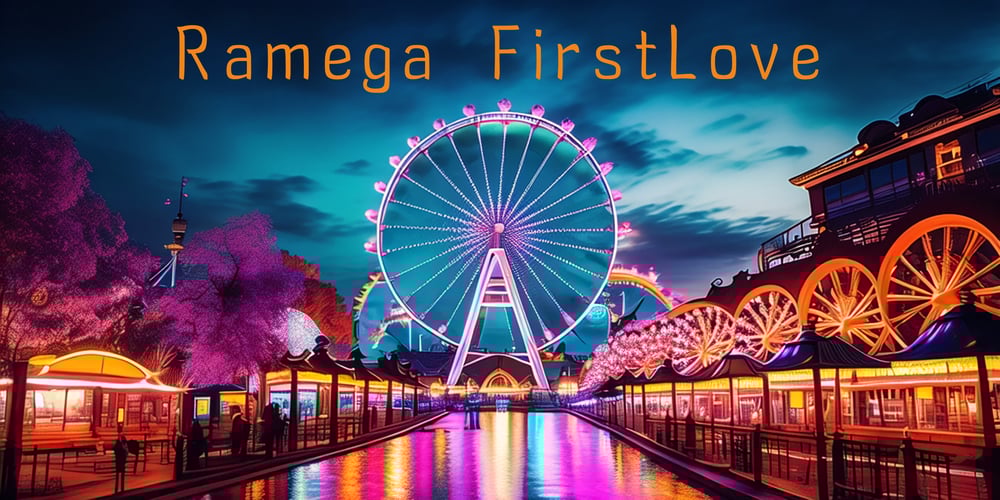
Ramega First Love Font Family was designed by Apollo Zhang and published by Ramega. Ramega First Love contains 1 styles and family package options. Introducing “Ramega First Love,” a unique English typeface that captures the heart with an essence reminiscent of those tender first-love memories. With features distinctly approaching the sans-serif style, it holds an intriguing blend of the concrete yet maintains an aesthetic allure, reflecting the bittersweet, raw yet beautiful nature of young love.The heart of this typeface lies in its deliberate incompleteness. The strokes, though they appear disrupted, are intentionally so, giving the characters a life and personality of their own. These slight imperfections symbolize the half-formed dreams and innocent aspirations of first love.An interesting aspect of “Ramega First Love” is its structural rigidity. Instead of flourishing curves, the letters retain a certain rigidity, reminiscent of the hesitant, sometimes awkward exchanges of early affection, resonating rather beautifully with the highs and lows one experiences in their first dalliance with love.Yet, within this seemingly rough configuration, there is a beautiful fluidity hidden in its simplicity. The clever use of space and alignment creates a harmonious flow between the letters, drawing an alluring picture of the sweeping emotions and gentle whispers of youthful love.”Ramega First Love” isn’t just a typeface; it’s a lyrical blend of nostalgia and romance. It embodies the unspoken charm and simplicity of first love, making every word seem like a secret love letter from yesterday. Its youthful vibrancy, underlined by maturity, evokes a soft spot in the hearts of the beholders, making it an apt choice for projects that aim to touch the heartstrings.In conclusion, the “Ramega First Love” typeface encapsulates the innocent ardour, joy, and occasional heartache of early love. Its intriguing design and unique style invite viewers to embark on a scenic journey down the memory lane of first love.